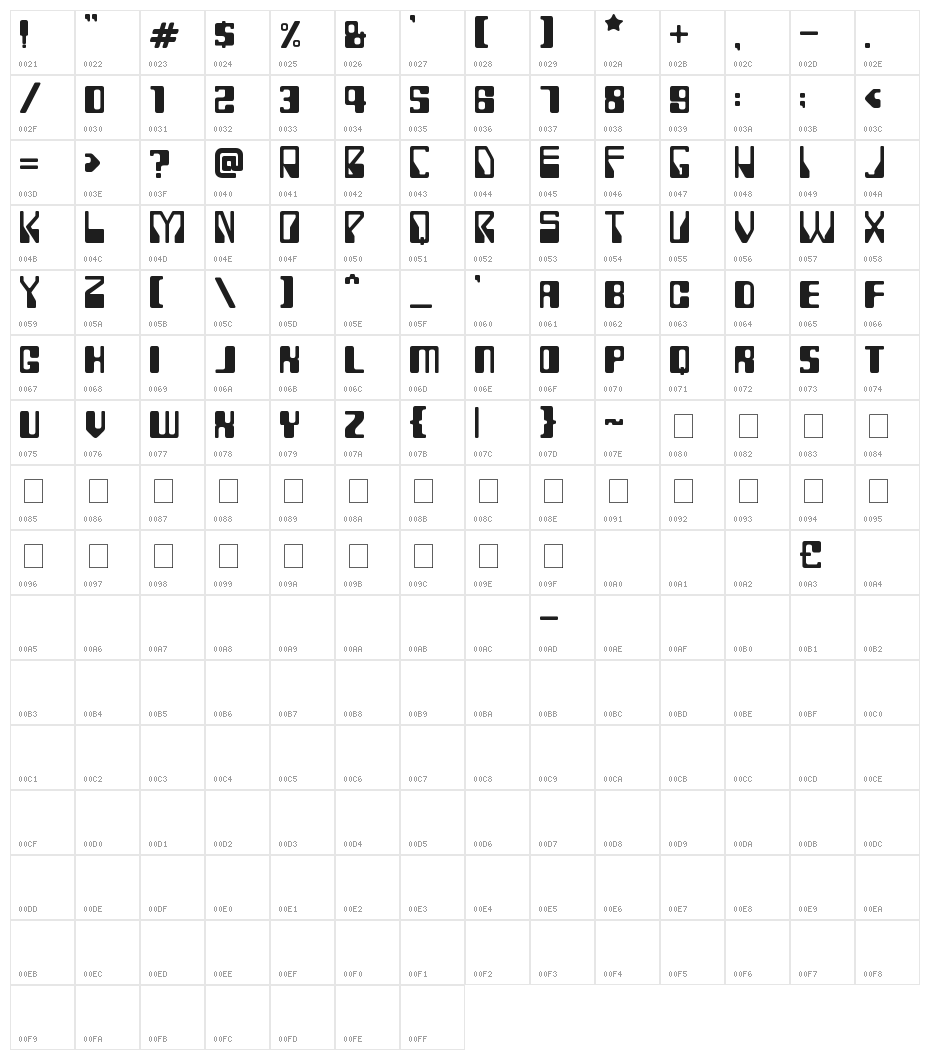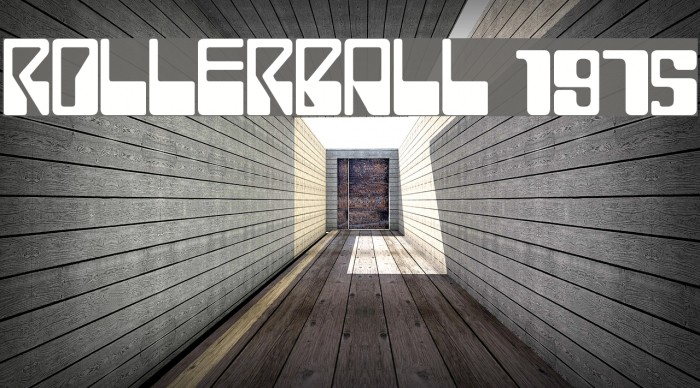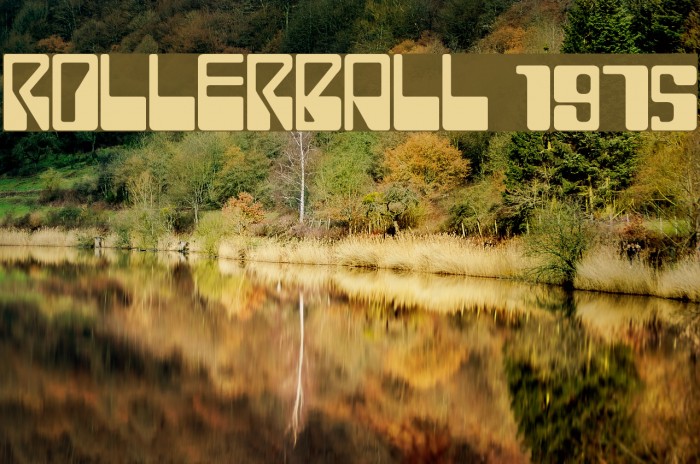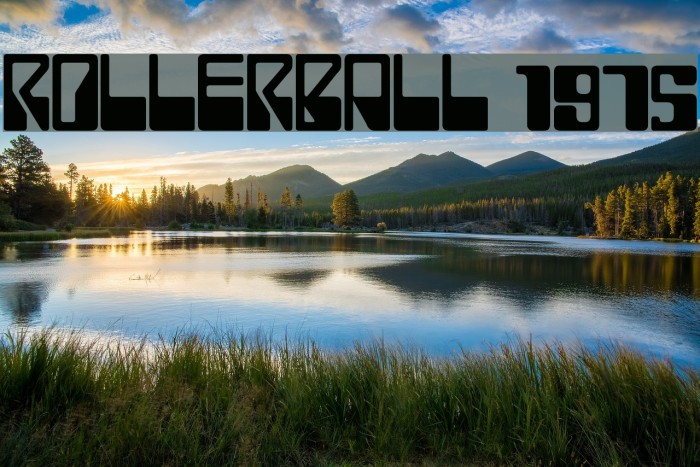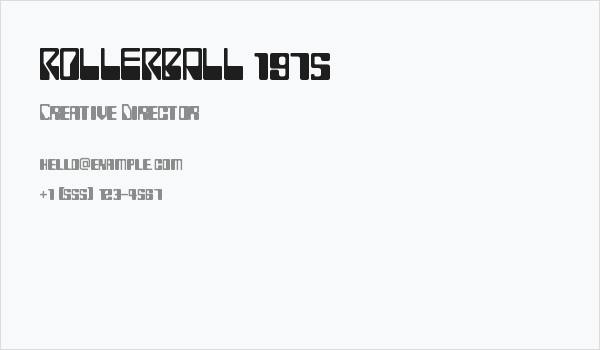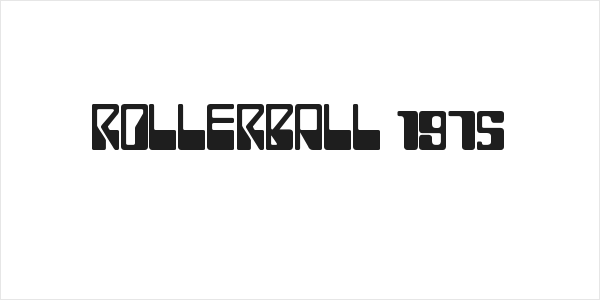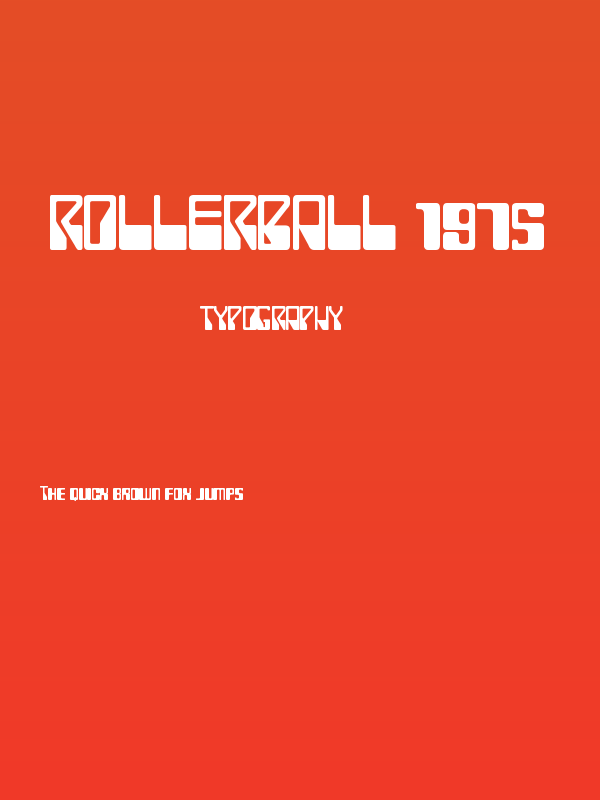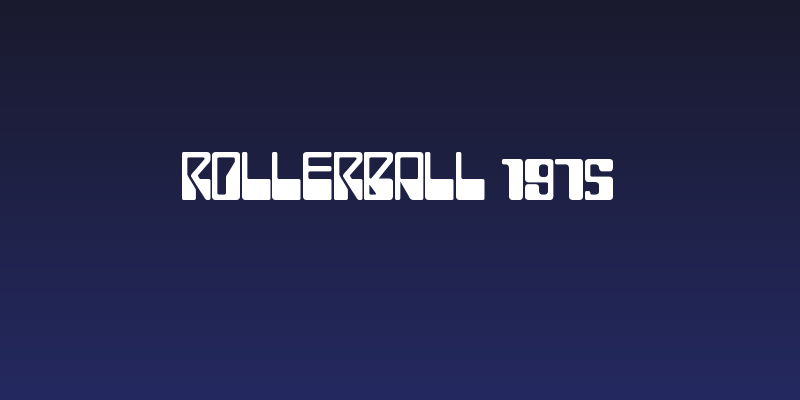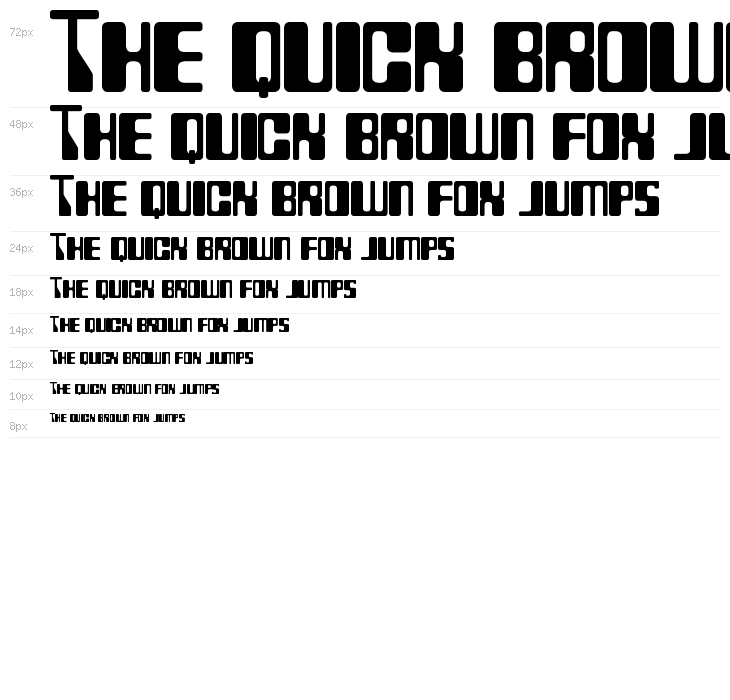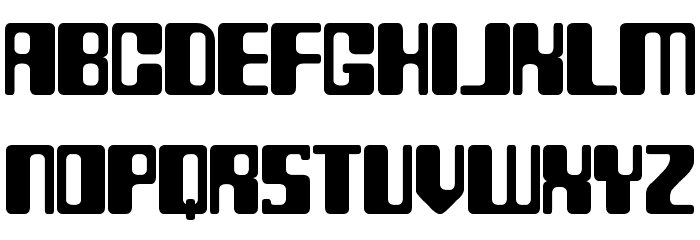
ROLLERBALL 1975 Font
ROLLERBALL 1975 Description
This font features a bold, futuristic design with a strong geometric influence. The characters are constructed with sharp angles and a blocky appearance, giving them a distinct, modern look. The uppercase letters are particularly striking, with unique cutouts and a sense of movement. The lowercase letters maintain the same boldness, ensuring consistency across the typeface. Numbers and special characters are equally bold, with a cohesive style that complements the letters. This font is ideal for projects that require a strong visual impact and a contemporary aesthetic.
| Proposed Projects | Ideal for sci-fi movie posters, video game titles, futuristic branding, and technology-related designs. |